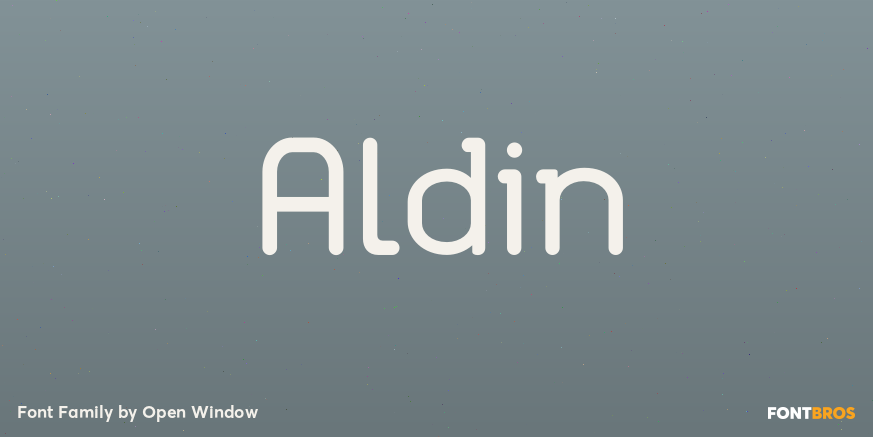
Aldin
About Aldin
Aldin is a stylish and modern typeface based on geometric forms. It is best suited for headlines and subheads but can also work in short paragraphs. Its character makes it a good choice for magazines, advertisements, packaging or logotypes for the fashion…